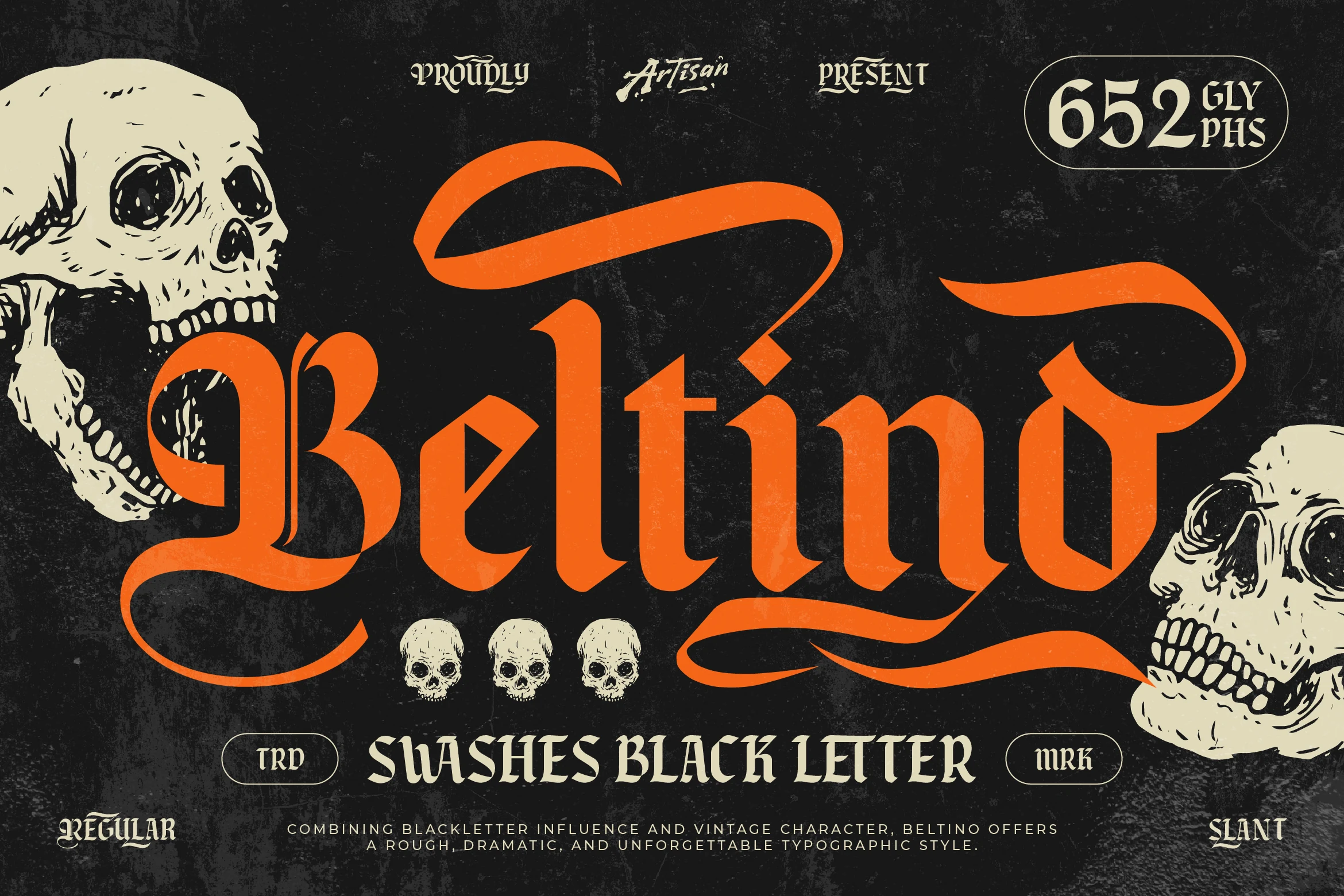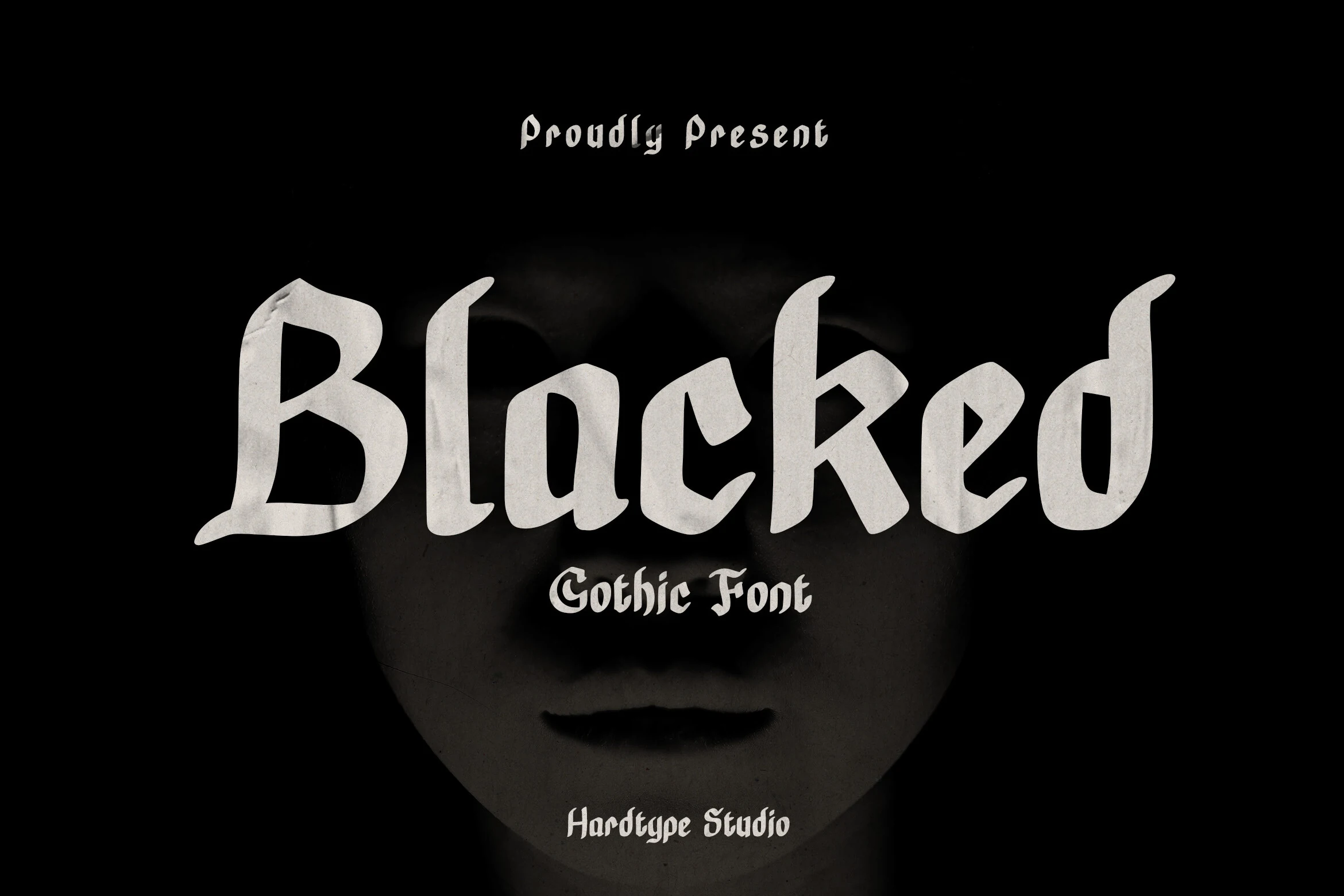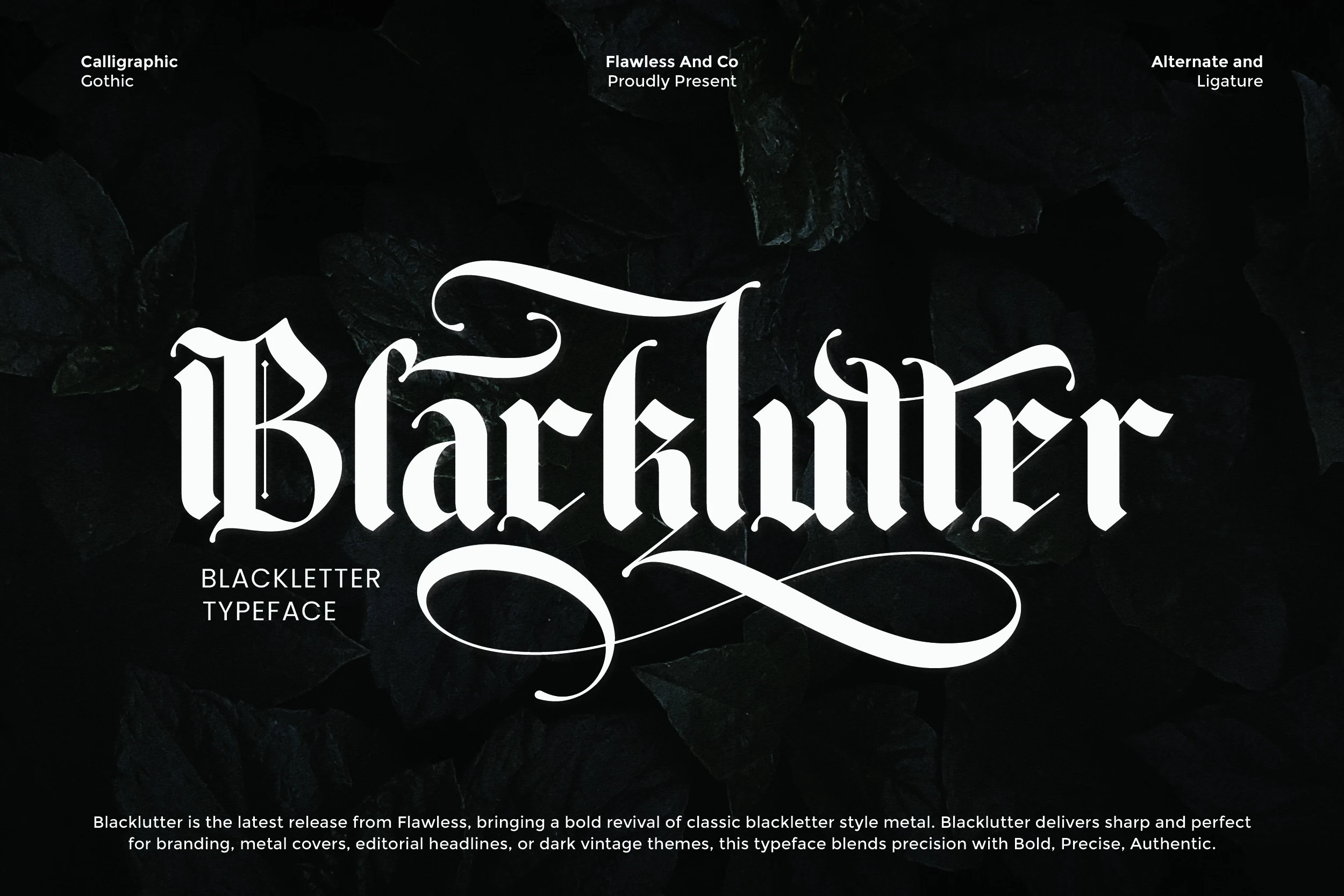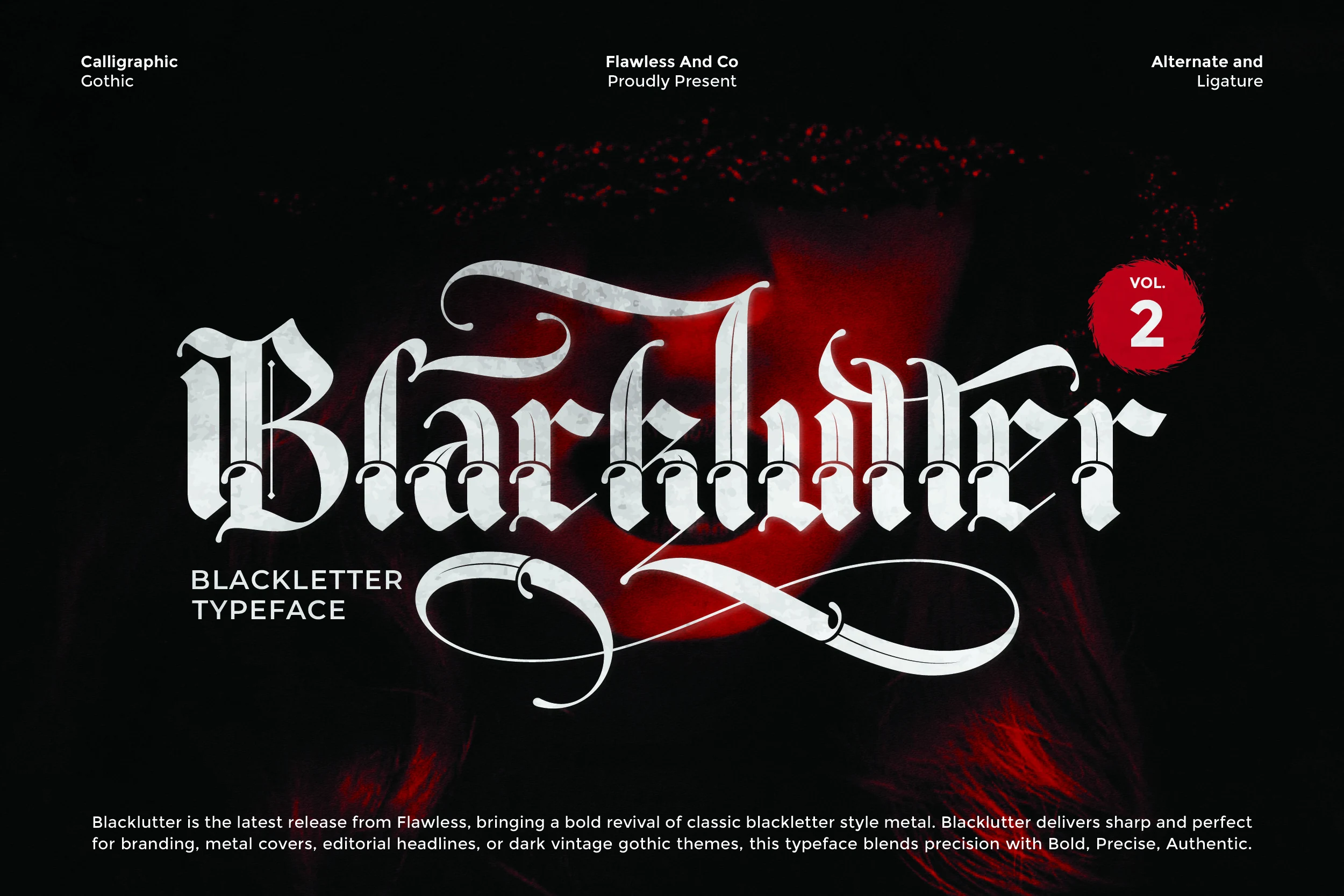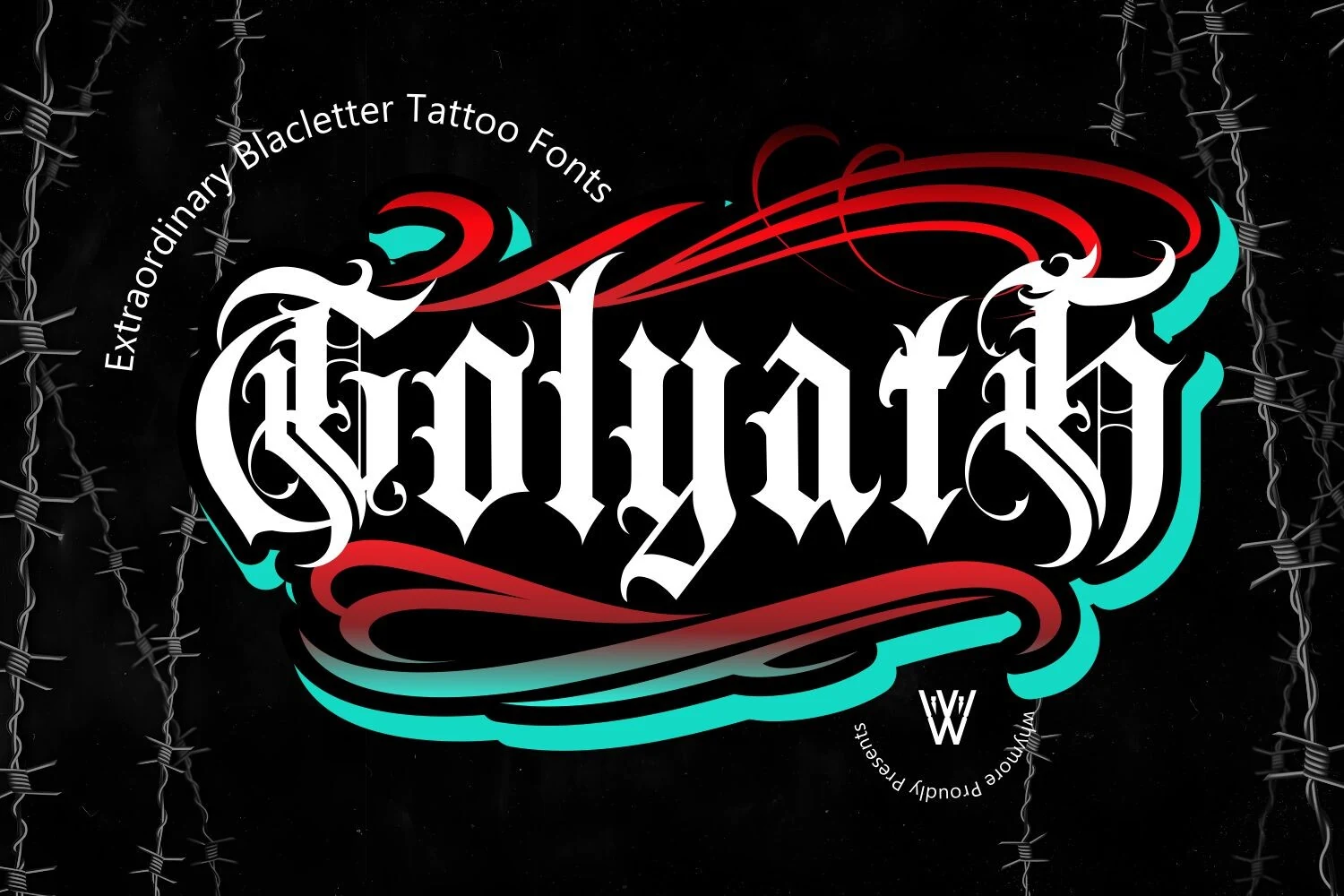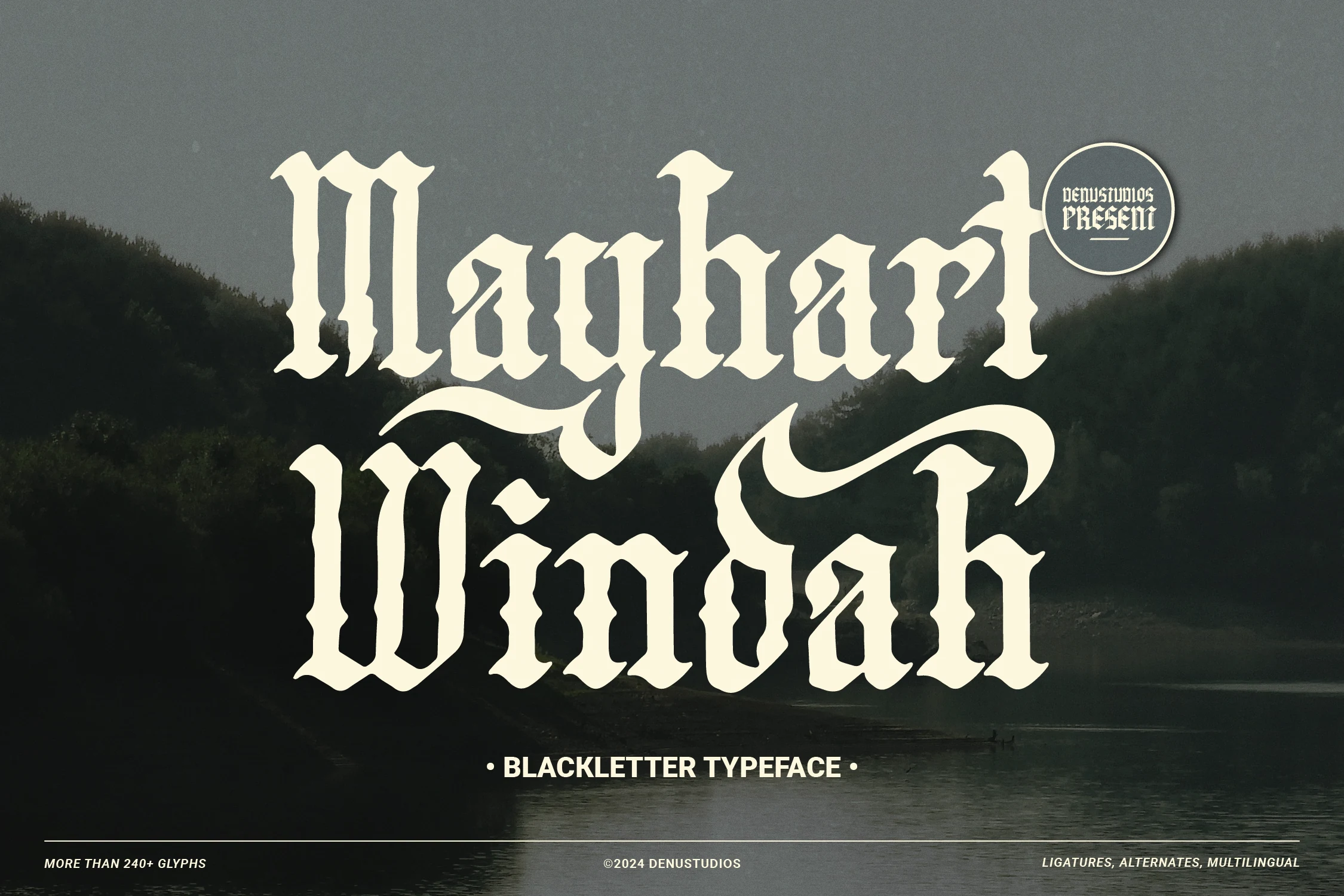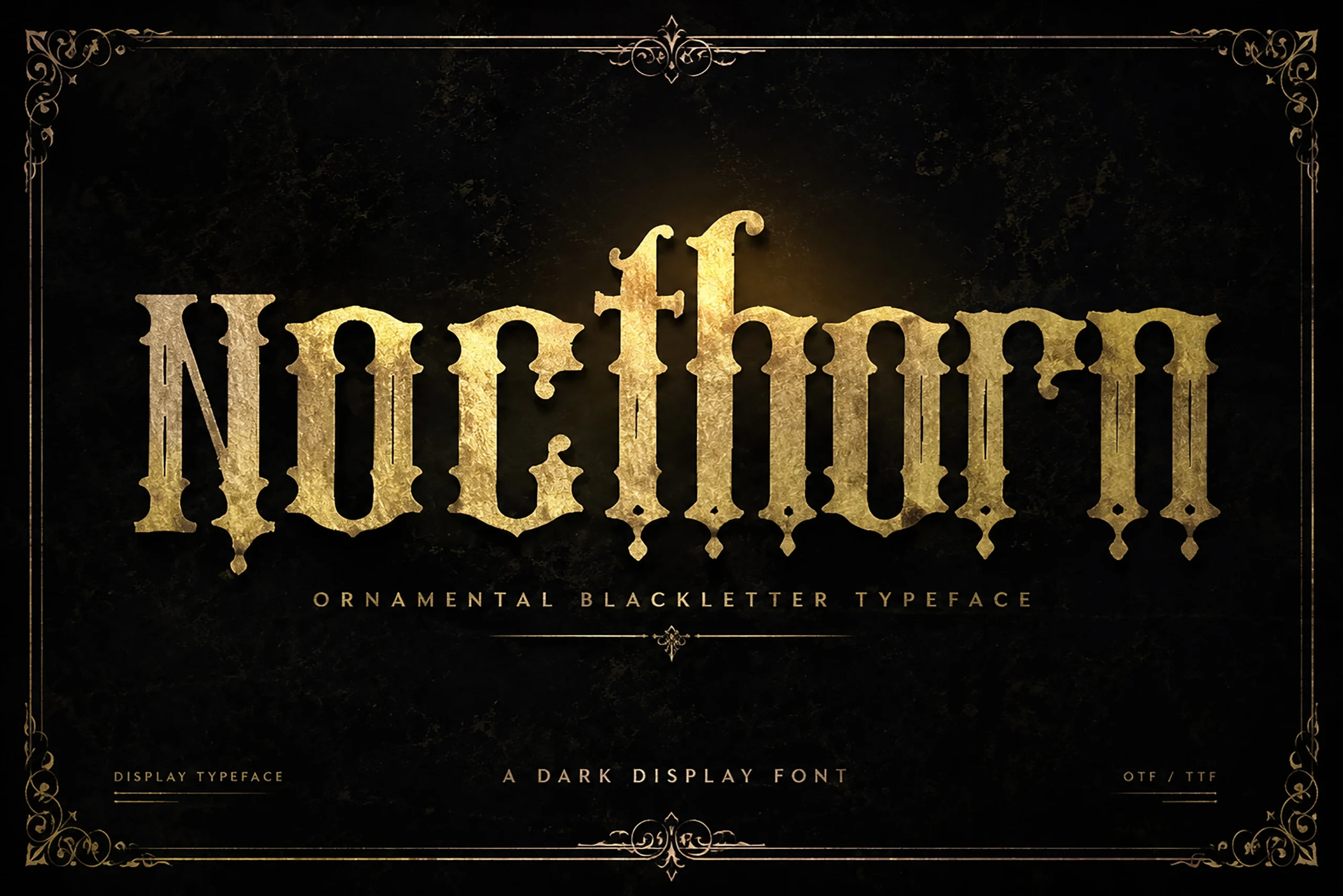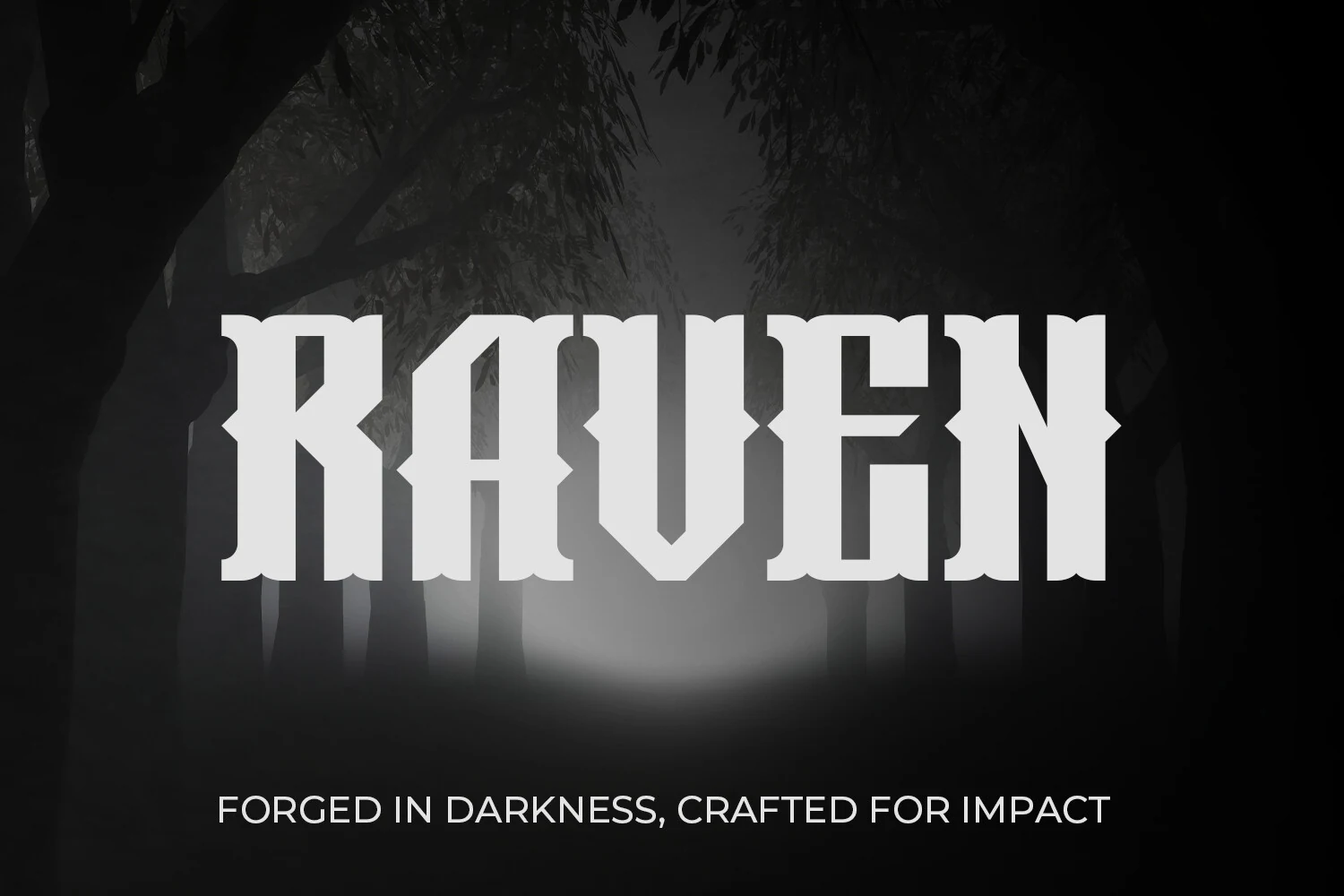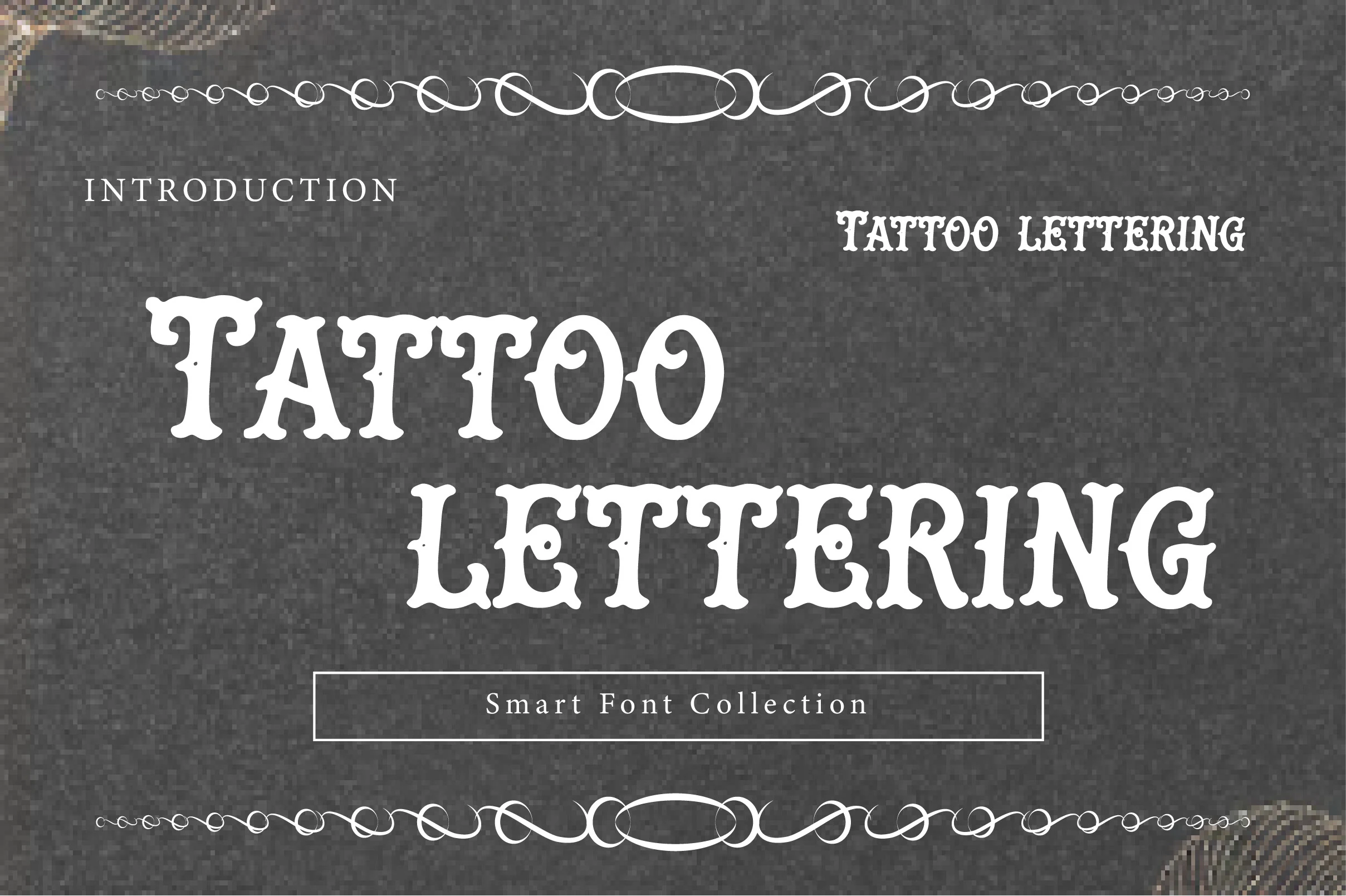
17 Best Tattoo Lettering Fonts for Tattoo Designs in 2026
This collection spans ornate blackletter, condensed Gothic, Western-inspired serif, and wide block constructions. These visible differences affect tattoo readability, spacing, and the design role each style can play, from short names and emblems to poster headings, logos, packaging, apparel, and other display-focused work.
Tattoo Lettering Fonts: Ornate Blackletter
These Tattoo Lettering Fonts share dense, high-contrast blackletter architecture, pointed terminals, and ornamental detail. They offer the richest historical texture, but generally require larger sizing than the other groups.
Catingal Font
Catingal Font displaying bold gothic blackletter forms with sharp angles, vertical strokes, and pointed terminals.
Catingal Font uses fractured angular geometry, diamond terminals, and a disciplined upright rhythm for a sharp blackletter silhouette. Its alternate characters and 27 ligatures expand display options, while complex forms need generous size for clear Tattoo Lettering Fonts.
Blacklutter Font
Blacklutter Font is a blackletter display typeface with sharp terminals, high-contrast strokes, and elongated ornamental swashes.
Blacklutter Font layers intricate swashes onto bold, high-contrast Gothic strokes, giving logos and merchandise a dense ornamental finish. It supports tattoo lettering and apparel especially well, but the decoration is better displayed large than used for compact captions.
Valkrine Font
Valkrine Font is a heavy Blackletter display typeface with sharp angular terminals, strong vertical rhythm, and ornate letterform flourishes.
For branding and identity marks, Valkrine Font brings a heavy modernized blackletter profile with sharp terminals, strong vertical rhythm, and flourishes on the initial V and terminal r. Its contemporary edge is distinctive, though small words quickly lose definition.
Think Higher Font
Think Higher Font features bold upright blackletter lettering with high contrast, diamond-shaped junctions, and ornate swash terminals.
Think Higher Font creates a formal, geometric effect through pointed diamond-shaped middle junctions and elaborate swash terminals. The rigid construction gives logos a controlled finish, but its high-contrast intersections should be tested at tattoo size before use.
Beltino Font
Beltino Font, a bold blackletter display typeface with sharp angular strokes and ornate calligraphic swashes.
Beltino Font combines sharp vertical terminals with calligraphic swashes for a compact vintage blackletter character. It can carry a short display word or emblem effectively, while longer wording becomes dense and less immediately readable.
Golyath Font
Golyath Font displayed as a heavy blackletter typeface with sharp diamond terminals, angular strokes, and ornamental swashes.
Golyath Font builds its engraved effect from heavy stems, pointed diamond terminals, and integrated ornamental swashes. Available in OTF and TTF formats, it suits Tattoo Lettering Fonts, apparel, posters, and branding, provided the flourishes receive generous space.
Sam Font
Sam Font, an ornate blackletter design with sharp pointed serifs, sweeping flourishes, and intricate internal filigree.
Sam Font distinguishes itself with engraved filigree inside thick, high-contrast stems, alongside sharp serifs and scrolling terminals. That antique detail suits fantasy titles, liquor labels, and tattoo-style marks, but intricate letter interiors need large sizing for recognition.
Nocthorn Font
Nocthorn Font is an ornamental blackletter display font with high-contrast strokes, pointed angular terminals, and upright Gothic letterforms.
Nocthorn Font forms a rigid, vertically disciplined silhouette from pointed terminals, high contrast, and Gothic architectural details. Its controlled structure can anchor a short premium brand name or headline, while explanatory text becomes visually crowded.
Condensed Gothic Display
Condensed Gothic designs compress vertical strokes, ligatures, and flourishes into narrow silhouettes. They fit tall logos and short marks efficiently, though their tight interiors can reduce clarity faster than wider forms.
Woliy Font
Woliy Font blackletter typeface with condensed vertical proportions, sharp angular terminals, and high stroke contrast.
Woliy Font packs condensed proportions and mixed, interlocking connections into a tightly built blackletter silhouette. The narrow structure helps short marks fit vertically constrained designs, but close internal spacing makes small Tattoo Lettering Fonts harder to decipher.
Valhalla Font
Valhalla Font displayed with bold condensed lettering, sharp angular terminals, and diagonal hatch shading.
How to Choose the Right Font
Choose by construction before mood: wide, low-contrast Raven offers the clearest headline reading, while condensed styles save space but need short wording. For elaborate Tattoo Lettering Fonts, reserve generous scale for joins, ligatures, hatching, and flourishes; test the actual tattoo or mark at final size before committing.